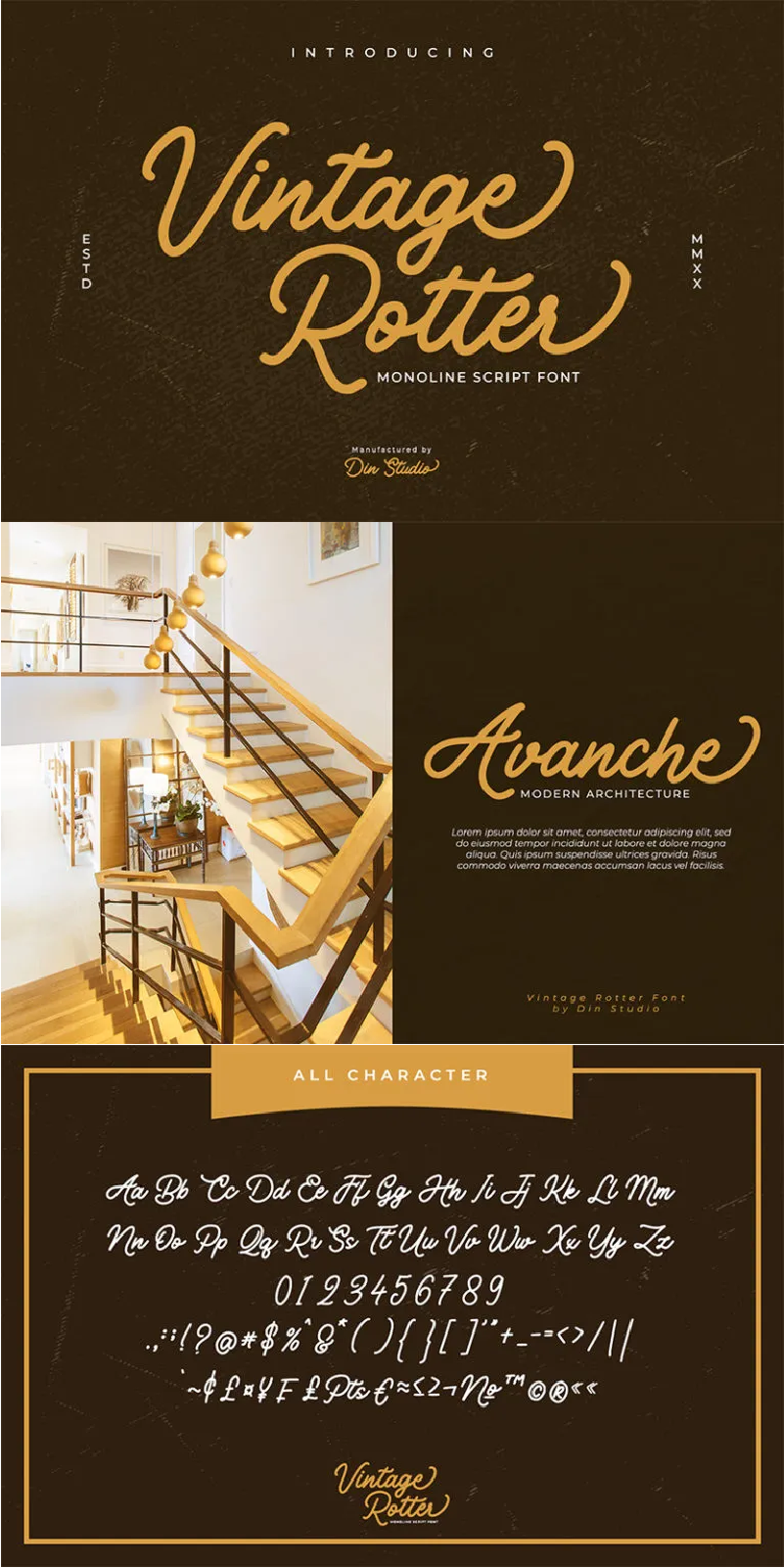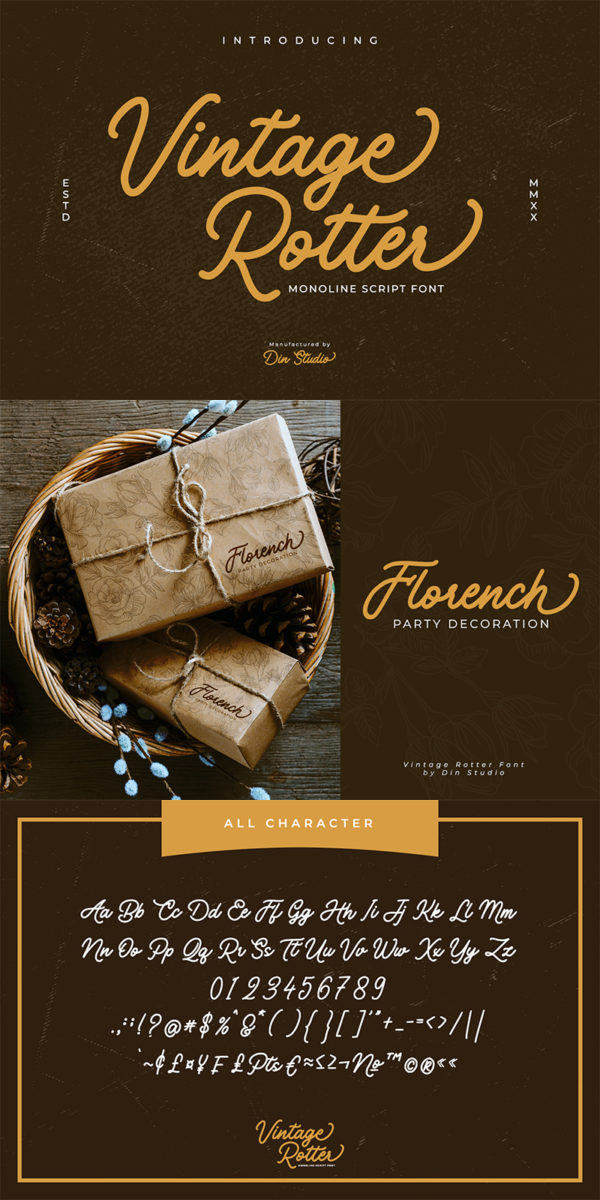
Vintage Rotter Font
About Vintage Rotter
Vintage Rotter – Monoline Script Font made for any professional project brandings best used for brandings, printings, weddings and quotes. Every letter has a unique and beautiful touch. See the previews above to get some inspiration on how you can use them. Happy designing!
-Standard Ligatures